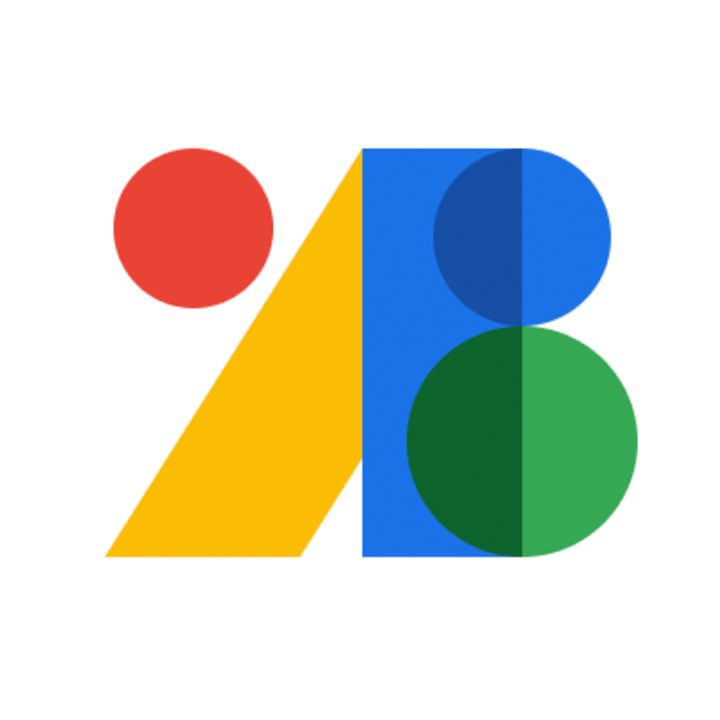
Google Fonts unveiled its colorful new logo along with a new collection of open source icons. Read more about it on their Material Design blog.
The Evolutionary Edition of Charles Darwin’s book uses clever typographic tricks to show how the text itself has evolved over the years.
MGM’s classic roaring lion logo just went full CGI, in true Hollywood fashion.